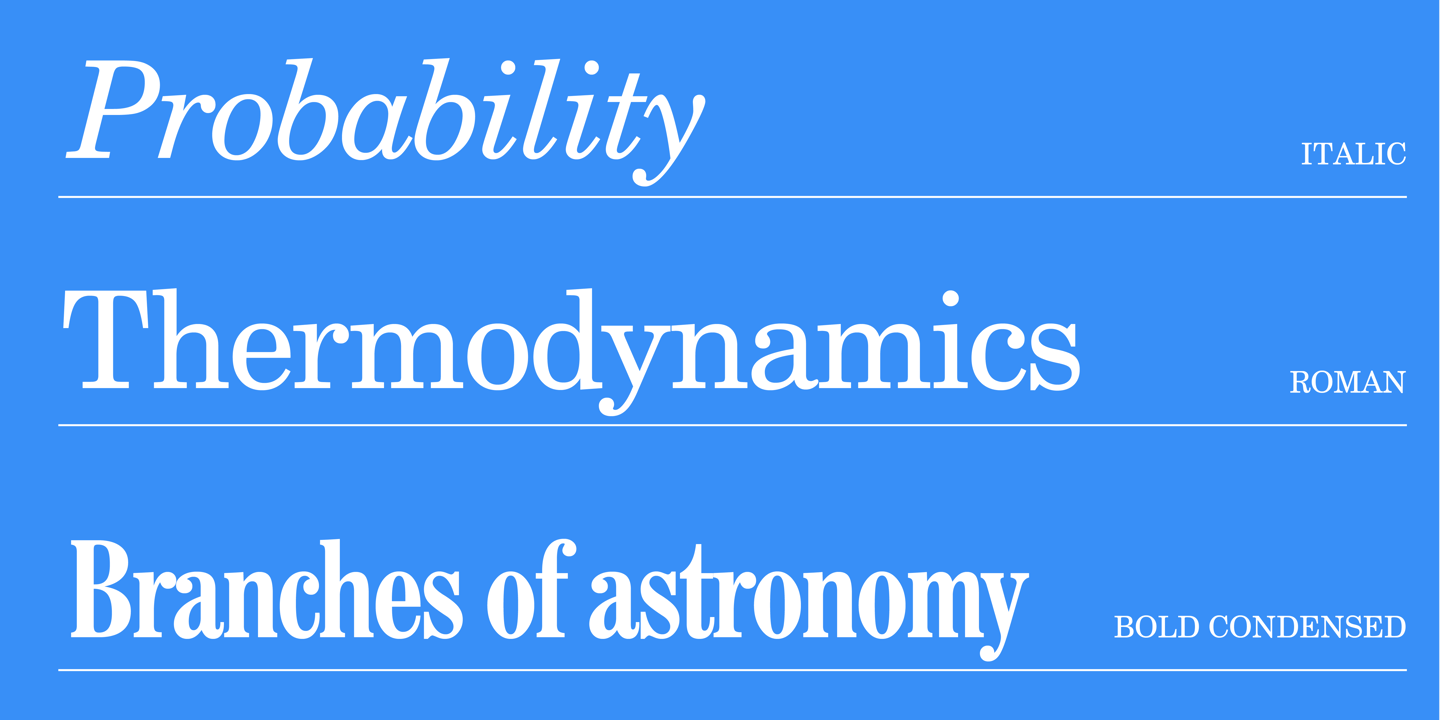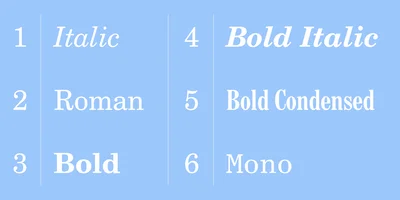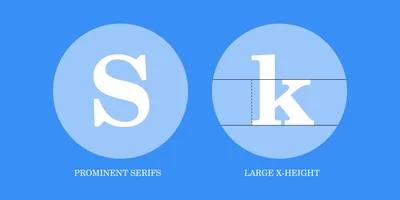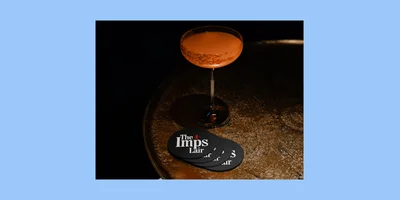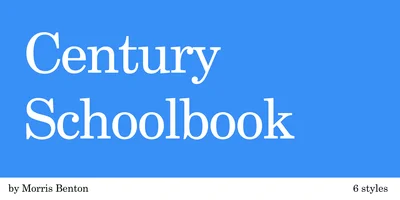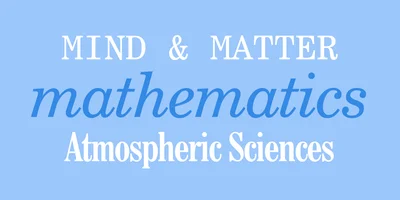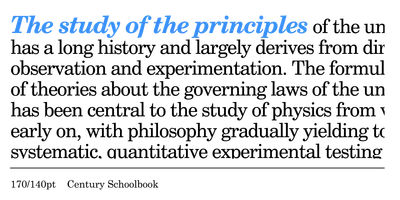
Baskerville vs Century Schoolbook
Baskerville and Century Schoolbook are both serif typefaces sharing a transitional foundation. Where Baskerville leans elegant, editorial, Century Schoolbook brings academic. Compare which suits your Academic project.
Typography for academic papers, research publications, and scholarly documents. ...
Recommended: Baskerville
- elegant, editorial design character
- Suited for Book Design and Editorial
- From monotype
Consider: Century Schoolbook
- academic design character
- Suited for Textbooks and Children
- From linotype